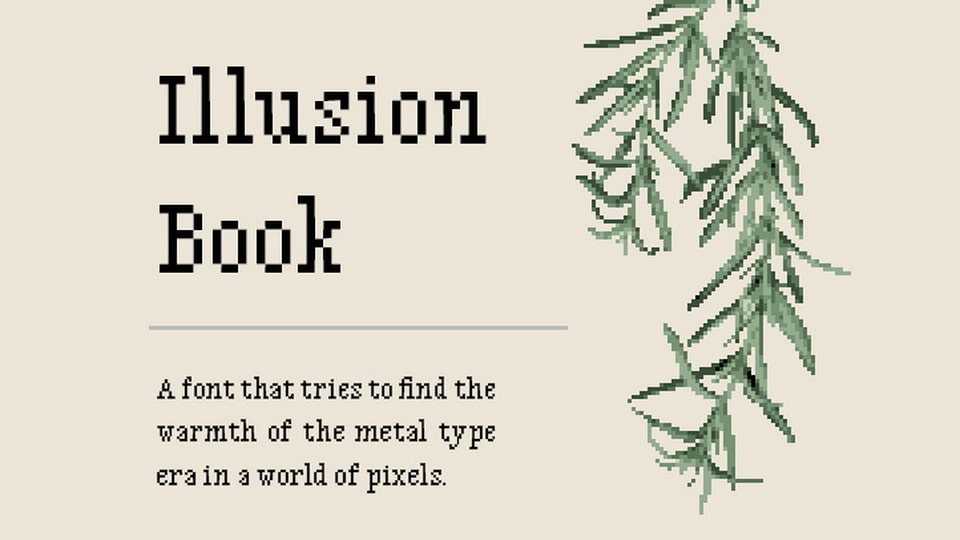
Download Illusion Book font, a typeface that tries to find the warmth of the typeface era in a world of pixels. It design concept shows the unique elegance of serifs in a pixel style, while also being highly readable and suitable for large sections of text.